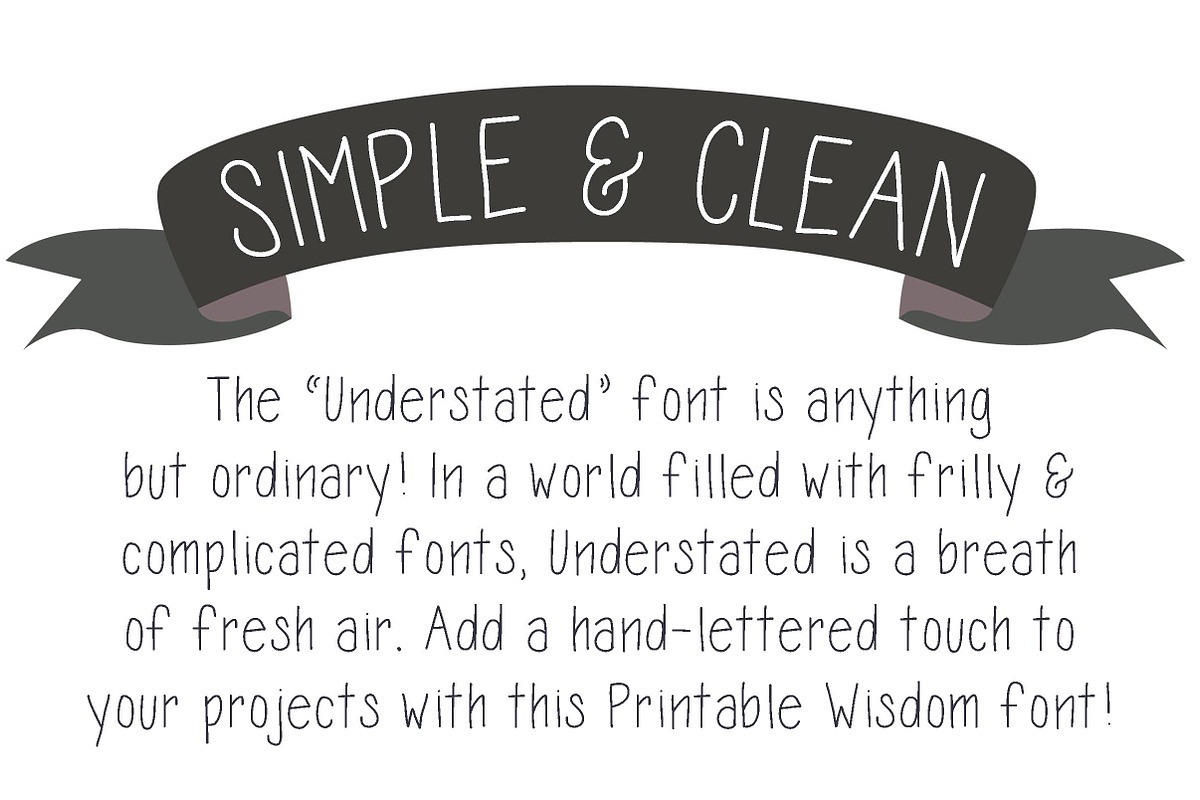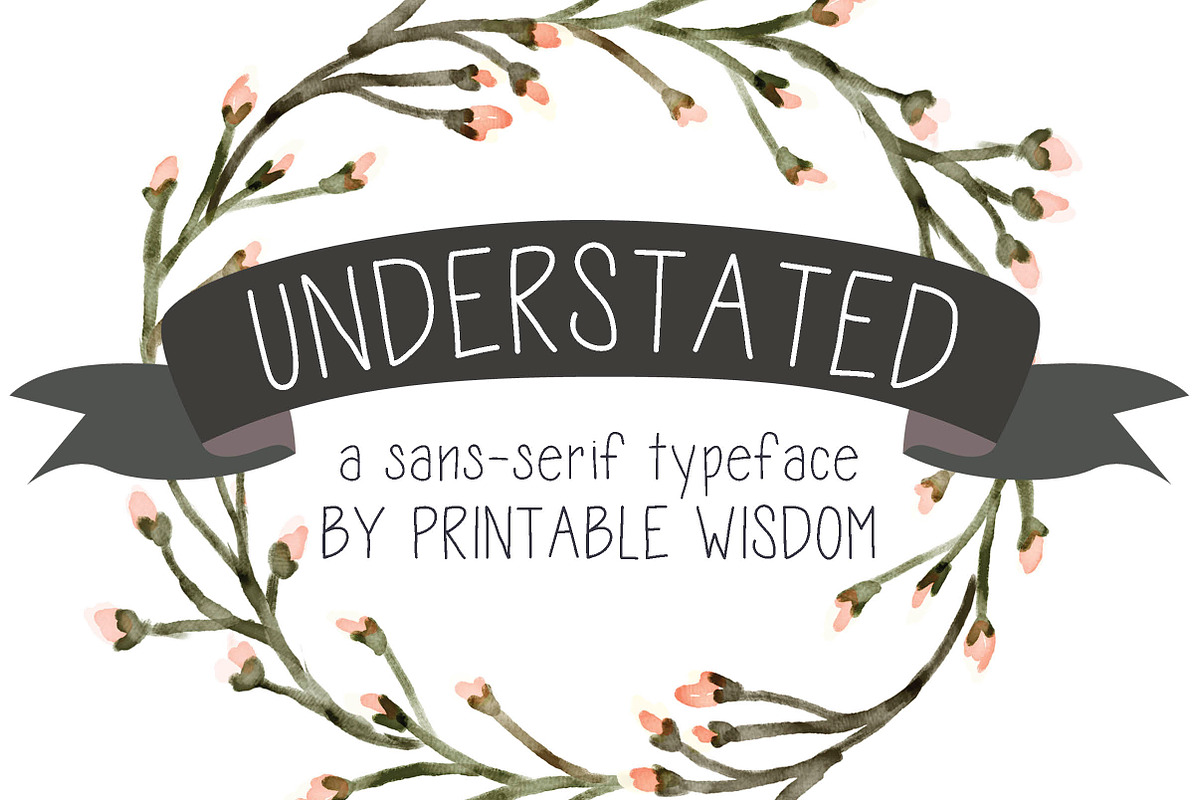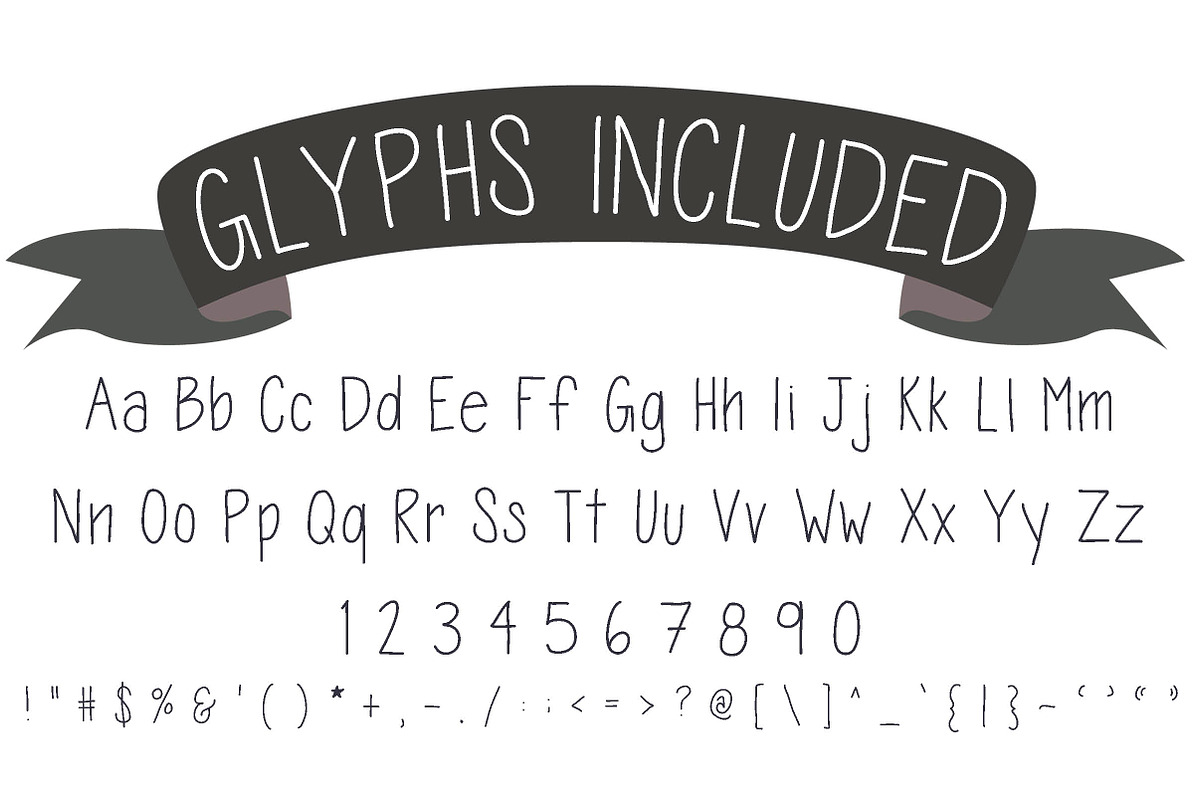
"Understated" a sans-serif typeface
"Understated" a sans-serif typeface by Printable Wisdom is a font selected for branding, posters, packaging, typography.
- All punctuation and numbers included (along with a gorgeous ampersand!).
Why "Understated" a sans-serif typeface is worth a look
"Understated" a sans-serif typeface by Printable Wisdom fits naturally into Branding, posters, packaging, typography.